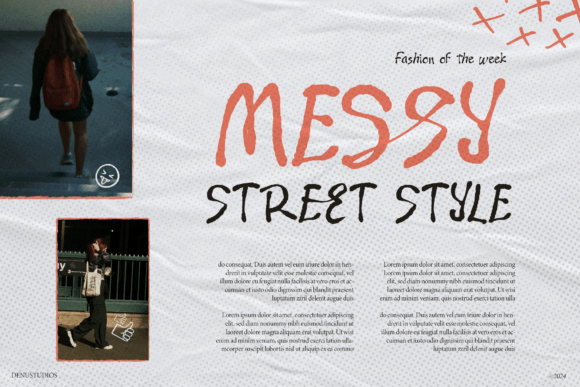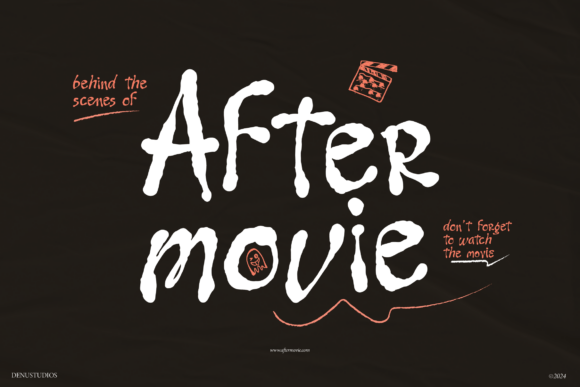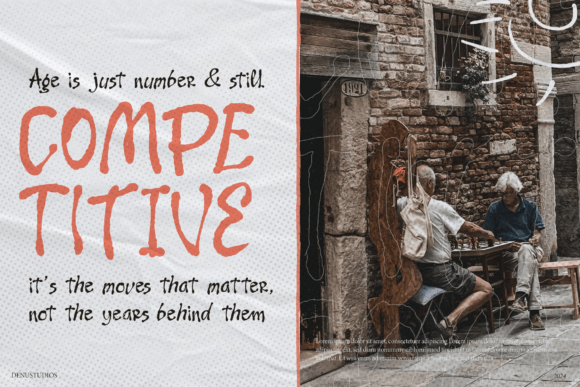
Introduction to Fungi Freak Font
Fungi Freak is a playful and messy handwriting font.
It looks like it was quickly scribbled, giving it a fun and wild style Perfect for creative projects that need a bold and quirky touch.
Key Features of Fungi Freak Font
Why Choose Fungi Freak Font?